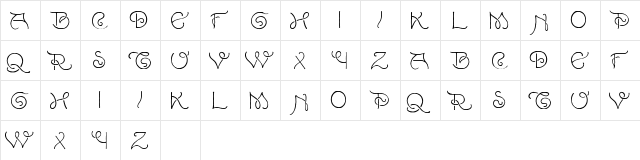
Pepin Press Caps-FA247 Regular
Design Context for Pepin Press Caps-FA247 Typeface
Pepin Press Caps-FA247 is a composed and adaptable typeface that performs quietly and consistently across a wide range of design contexts.